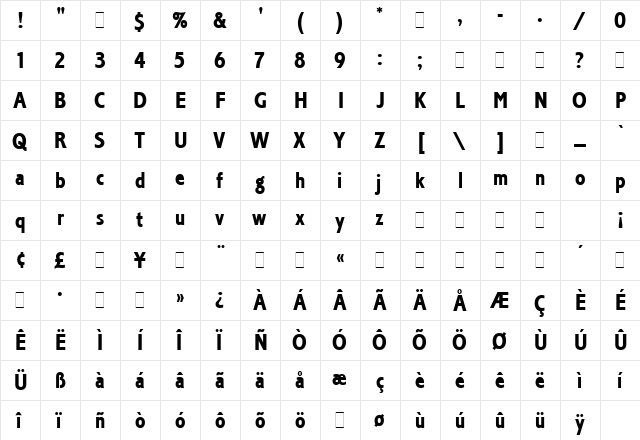
Corinthian Bold Condensed Regular Font Preview
Design Context for Corinthian Bold Condensed Typeface
Corinthian Bold Condensed takes a measured approach to typography — its balanced proportions and neutral character make it a reliable workhorse for both digital and print work. The heavy weight commands attention and anchors typographic hierarchies. Its narrow stance lets it pack a punch even in space-constrained designs.